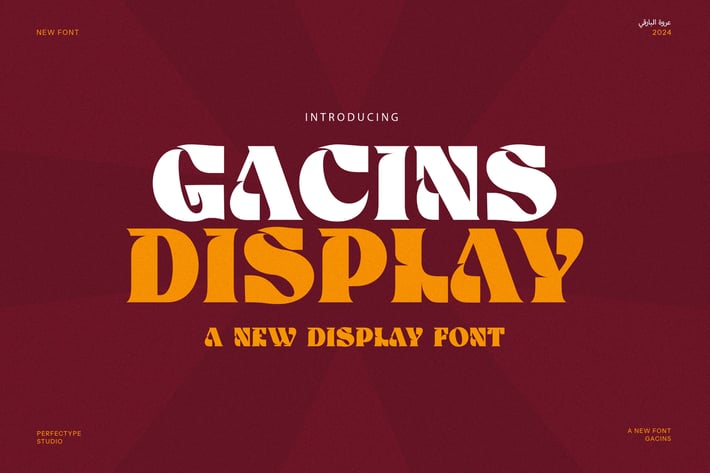
Gacins Display Serif Font
Gacins Display Serif Font is a bold and striking typeface designed to bring a sense of vintage elegance and classic charm to any design. With its distinctive serif features, this font exudes a timeless appeal, making it perfect for a wide range of creative projects. Its strong, confident structure ensures that every letter stands out, whether it’s used in headlines, logos, or product branding.
The Gacins font’s vintage style evokes a sense of nostalgia while maintaining a fresh, modern look. Its sharp serifs and balanced proportions make it highly legible, yet full of character. Ideal for logos, branding, websites, magazines, advertisements, and product packaging, this font is versatile enough to suit various design applications. Whether you're working on boutique designs, food packaging, or retro-inspired projects, Gacins provides the perfect type solution.
Beyond branding and marketing, Gacins Display Serif Font is a fantastic choice for editorial layouts, offering a blend of elegance and strength. Its bold presence ensures it captures attention, while its refined vintage elements add sophistication to any design. With its versatility and unique style, Gacins is the ideal font for designers looking to create powerful, timeless visuals that leave a lasting impression.